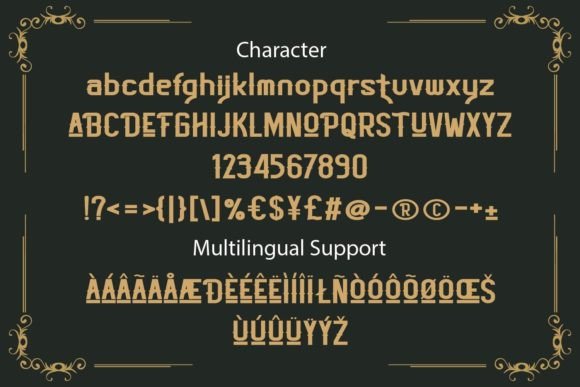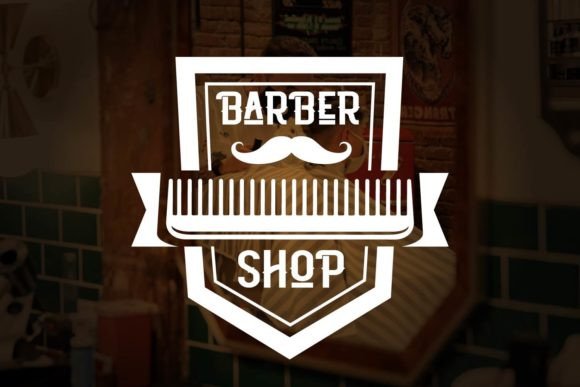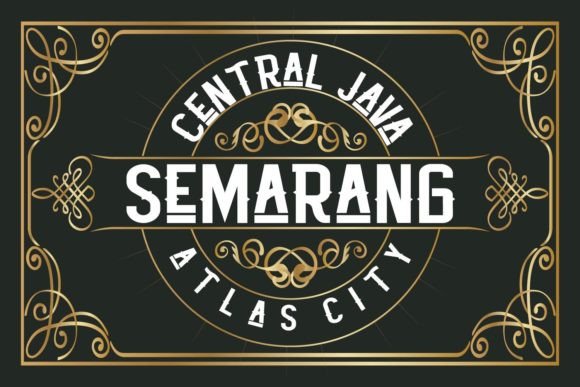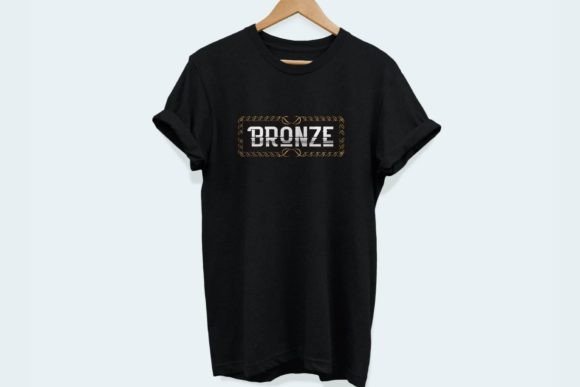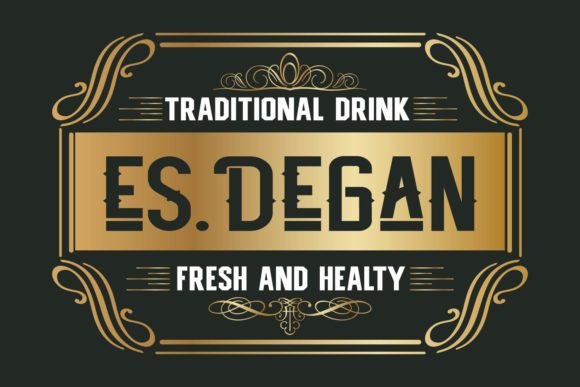
The Perfect Blend of Vintage Charm and Modern Flair
As designers, we’ve all been there – staring at a blank canvas, waiting for the perfect font to bring our vision to life. It’s that moment when you know exactly what you’re looking for, but can’t quite put your finger on it. For many of us, that elusive font is one that exudes confidence, sophistication, and a touch of nostalgia.
Enter Bronze Font, a stylish display font that embodies the very essence of vintage charm. With its strong, dynamic lines and classic aesthetic, Bronze Font is the perfect addition to any headline or logotype project. Whether you’re looking to add a touch of nostalgia to your designs or simply want to make a statement, Bronze Font is a valuable asset that’s sure to elevate your creative output.
Bronze Font Key Features
- Font Family: Bronze Font is a sans-serif font family designed for digital use.
- Font Sizes: Bronze Font includes a range of font sizes, from 8pt to 72pt, making it suitable for various applications.
- Resolution: Optimized for screen display at resolutions up to 300 DPI.
- Unique Characteristics: Bronze Font features a modern and clean design with a subtle bronze-like tone, making it ideal for use in digital products, branding, and user interface design.
Designer Review: Bronze Font
Overall, I think Bronze Font has some great qualities, but it also has some areas where it falls short. ✨
- The unique blend of traditional and modern styles in Bronze Font is quite striking.
- It’s versatile enough to work well in a variety of contexts, from headings to body text.
- The subtle texture and warm tones give it a cozy, inviting feel.
- ⚠️ At larger sizes, the font can start to look a bit rough around the edges.
- ⚠️ It may not be the best choice for very long blocks of text, as the texture can become overwhelming.
- ⚠️ The font’s unique style may not be to everyone’s taste.
Overall, I think Bronze Font is a solid choice for anyone looking for a distinctive, high-quality font. It’s not perfect, but its strengths outweigh its weaknesses in my opinion.
The Bronze Font is commonly used in:
- Business presentations and reports.
- Luxury product packaging and branding.
Tips: Use the Bronze Font to create a sense of elegance and sophistication in your designs.
Alternatives to Bronze Font for Designers
Montserrat is a sans-serif font that is highly legible and versatile. It is a great alternative to Bronze Font for digital interfaces, such as websites and mobile apps, due to its clean and modern aesthetic.
Montserrat is more modern and clean compared to Bronze Font, making it a better choice for digital interfaces. It also has a wider range of weights and styles, making it more customizable.
2. Playfair Display
Playfair Display is a serif font that is highly decorative and elegant. It is a great alternative to Bronze Font for print materials, such as business cards and brochures, due to its luxurious and sophisticated aesthetic.
Playfair Display is more ornate and decorative compared to Bronze Font, making it a better choice for print materials where a sense of luxury and sophistication is desired. It is not as versatile as Bronze Font, but it is perfect for making a statement.
Lato is a sans-serif font that is highly readable and versatile. It is a great alternative to Bronze Font for digital interfaces, such as websites and mobile apps, due to its clean and modern aesthetic.
Lato is more minimalist and clean compared to Bronze Font, making it a better choice for digital interfaces where simplicity is key. It also has a wider range of weights and styles, making it more customizable.